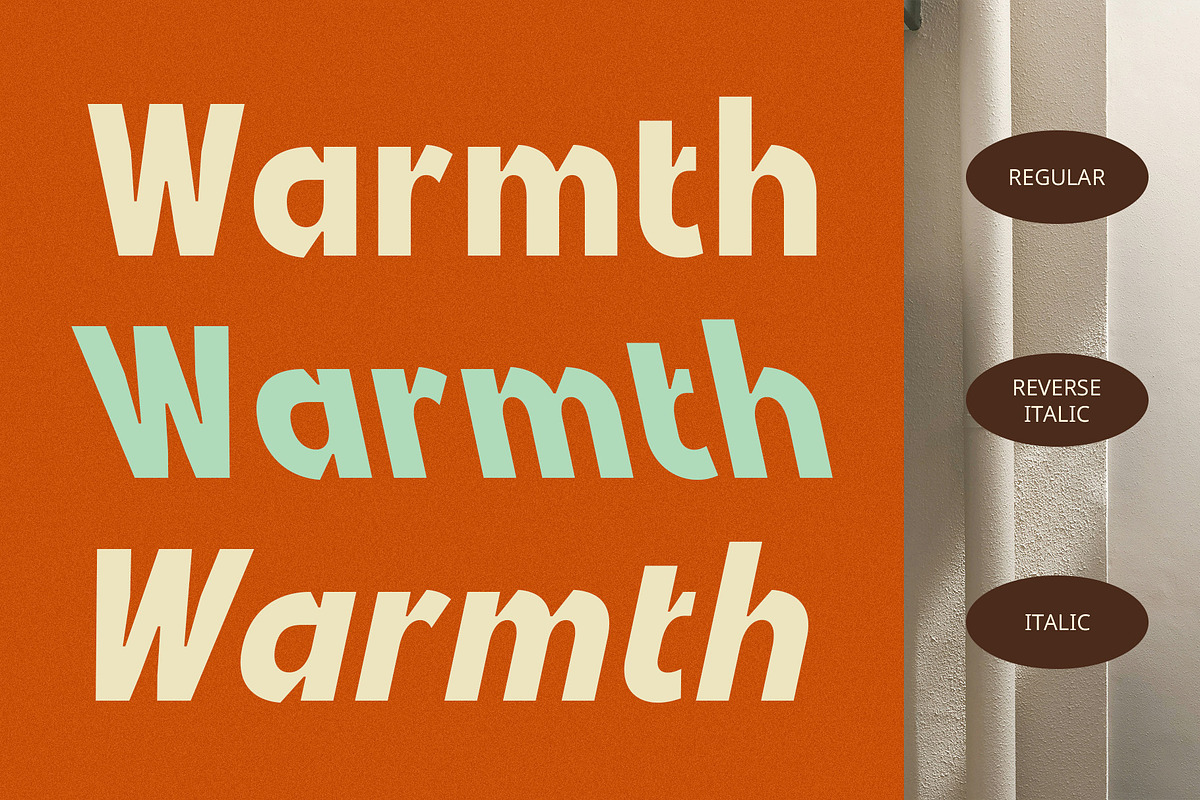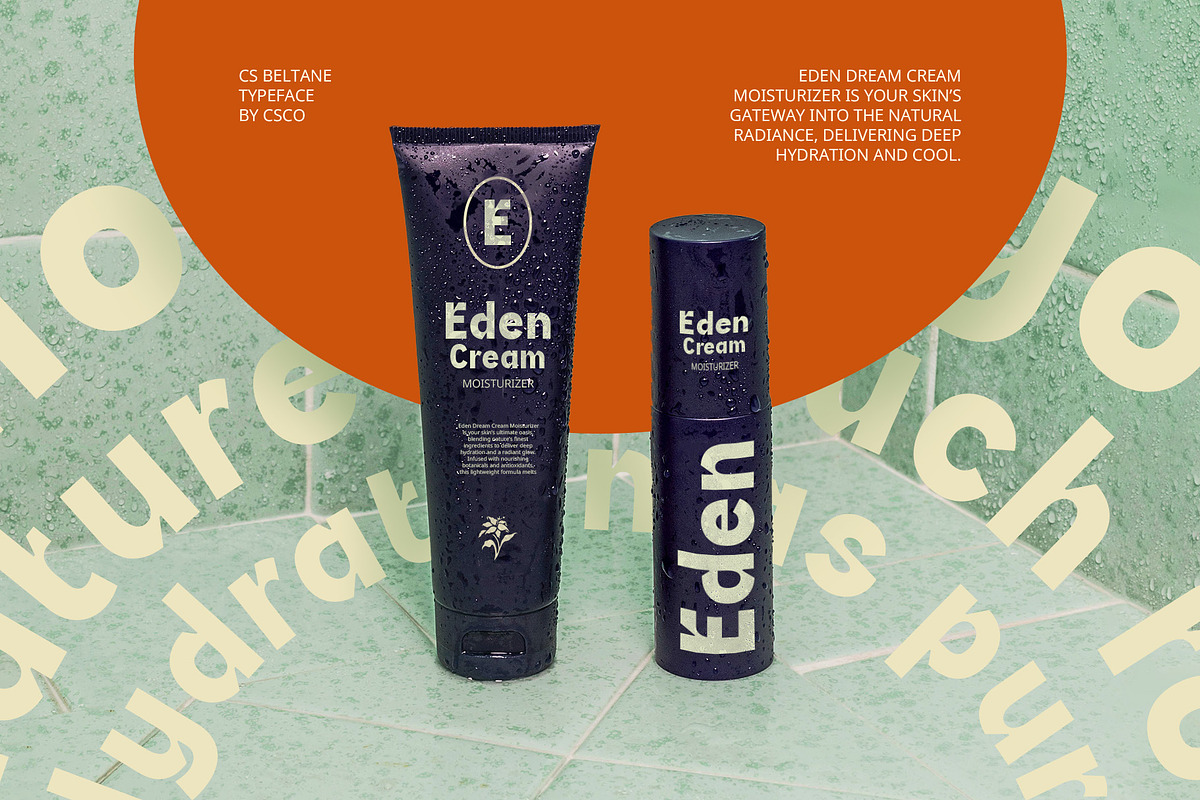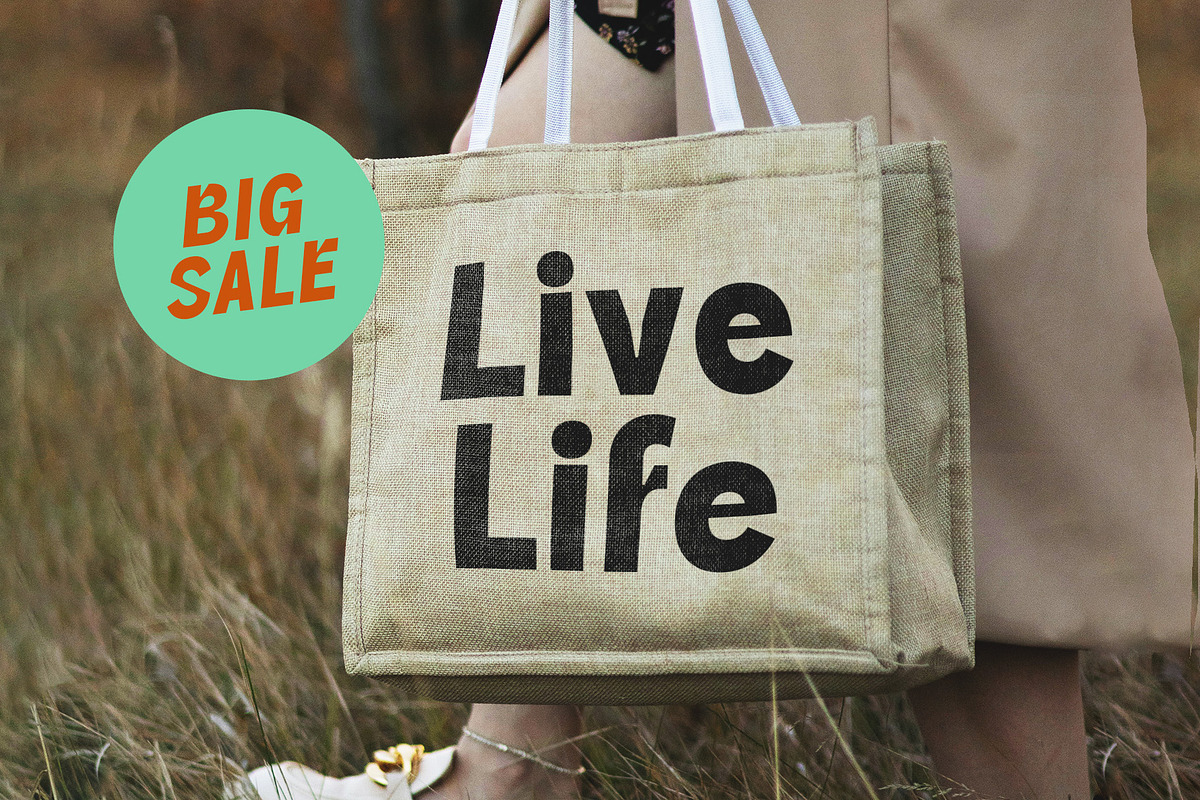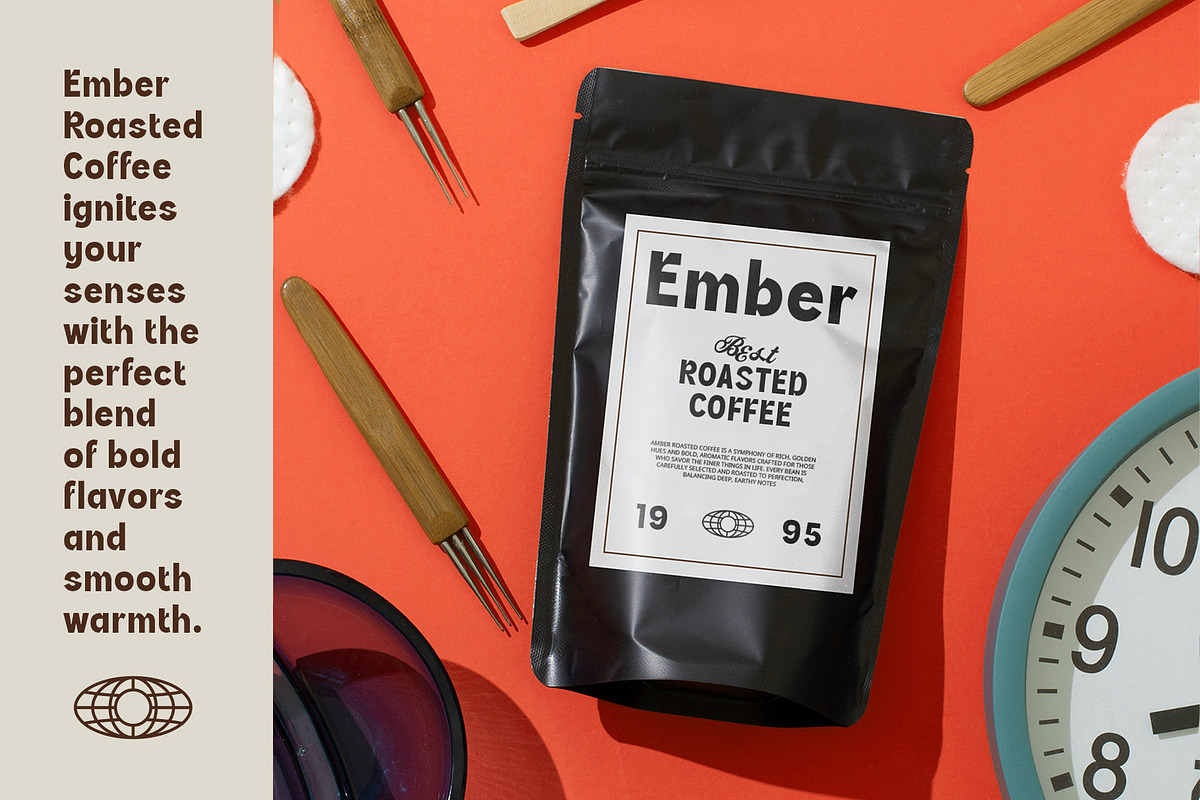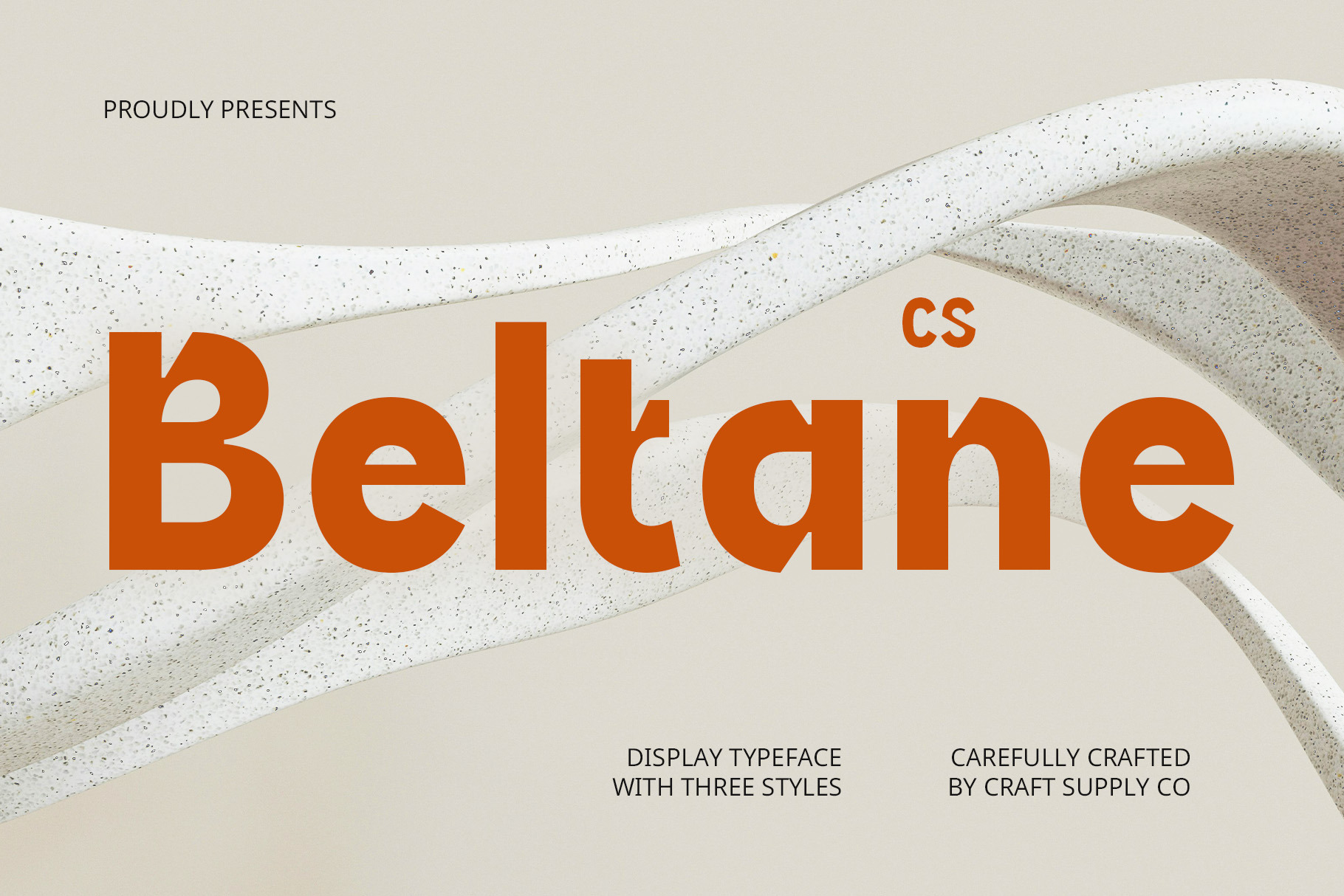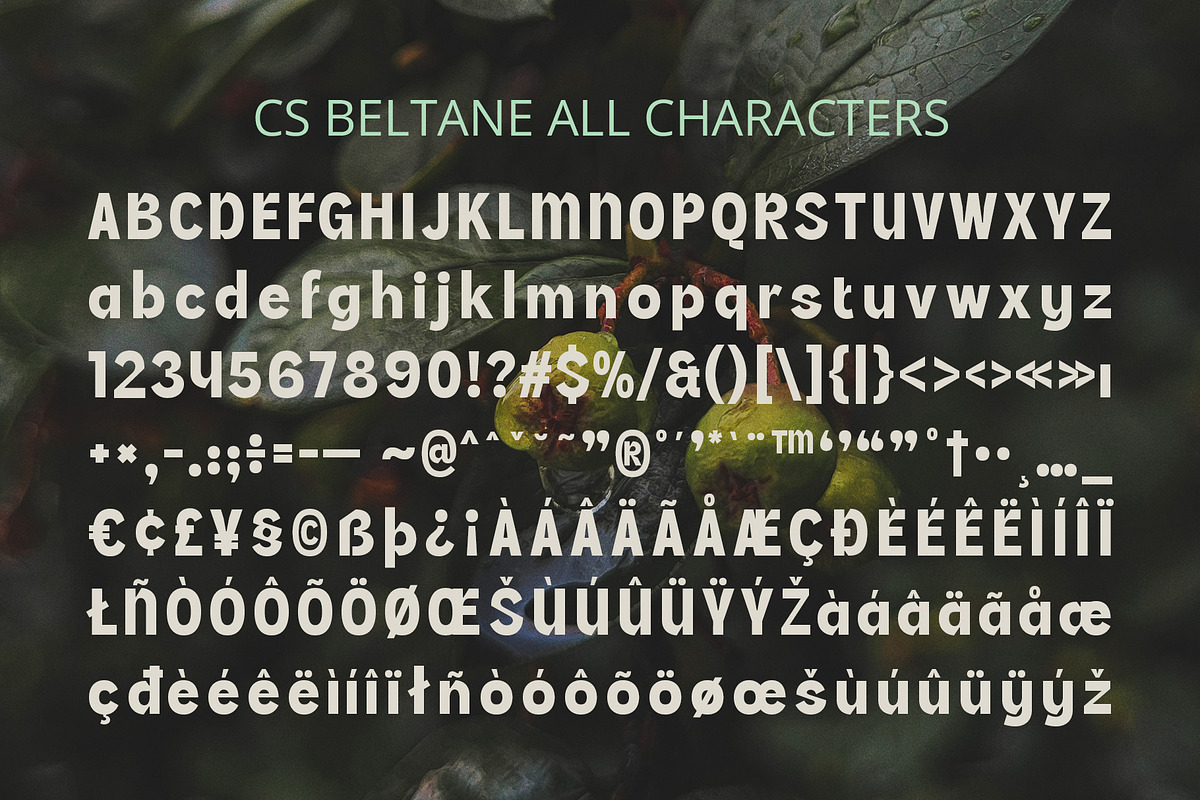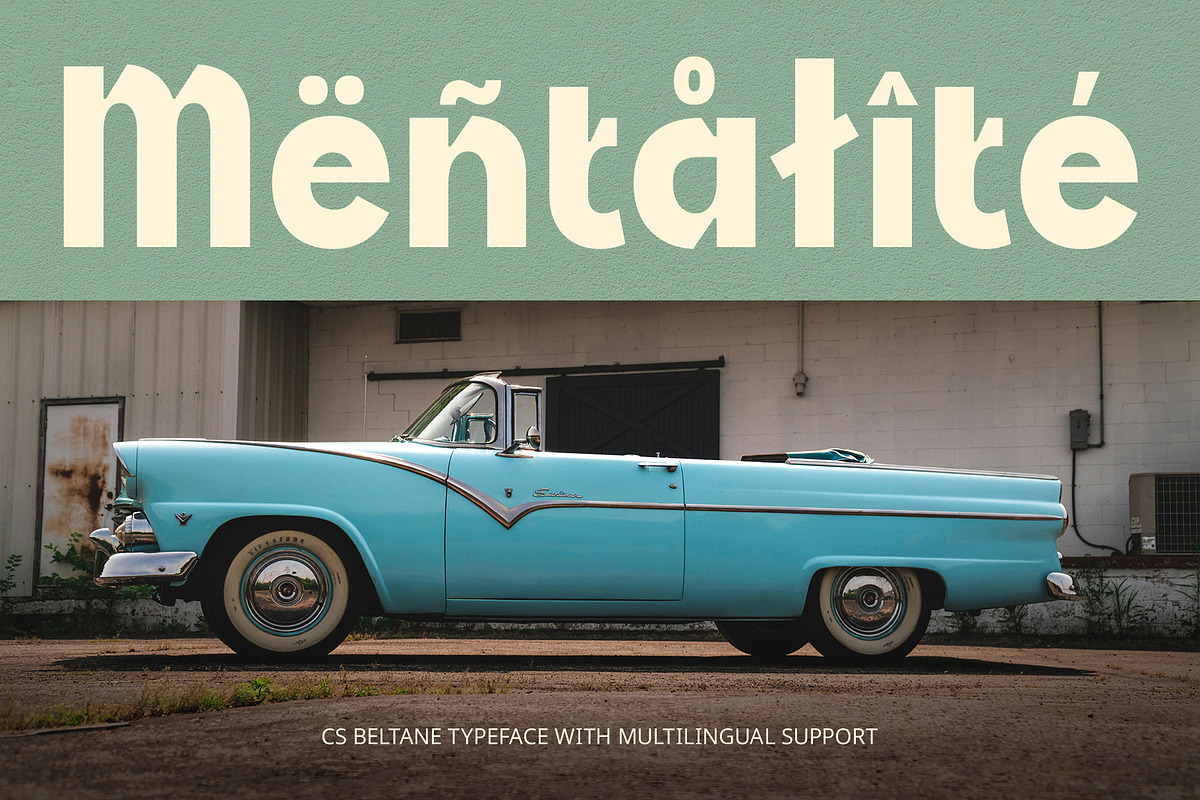
CS Beltane – Bold Font
CS Beltane – Bold Font: Timeless Boldness with Contemporary Elegance
Strong and Clean with a Touch of Classic Sophistication CS Beltane – Bold Font is a striking, modern sans-serif display typeface that effortlessly combines strong, clean lines with a classic, refined aesthetic. Its bold letterforms are designed to make a powerful statement while maintaining a sense of timeless elegance. The font balances contemporary simplicity with traditional sophistication, making it a versatile choice for both modern and classic designs. Its robust structure and clean design ensure that it stands out, making it perfect for projects that demand attention and authority.
High Visibility and Impact for Bold Designs With its thick, sturdy letterforms, CS Beltane guarantees high visibility and impact in any design application. This font excels in projects that require strong, attention-grabbing typography, such as branding, advertisements, and editorial designs. Its boldness ensures that it commands attention in headlines, posters, and logos, while its clean lines maintain a sense of approachability and clarity.
Versatile for Modern and Classic Applications Despite its boldness, CS Beltane offers remarkable versatility, making it an excellent choice for a wide range of design applications. The font’s contemporary sans-serif structure blends seamlessly with classic design elements, providing a timeless feel that can be applied to both traditional and modern projects.